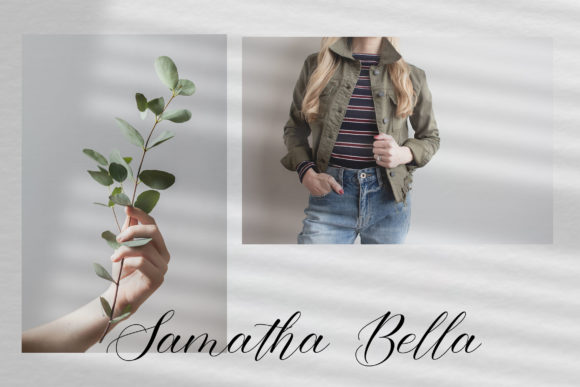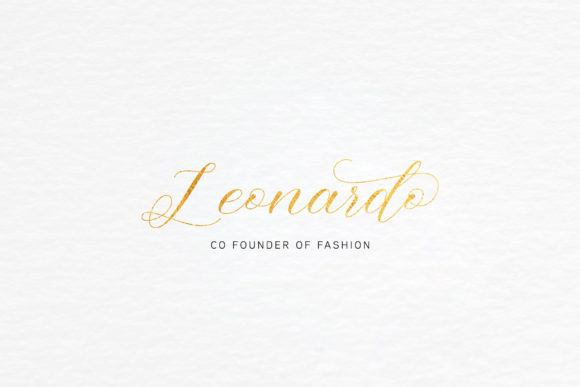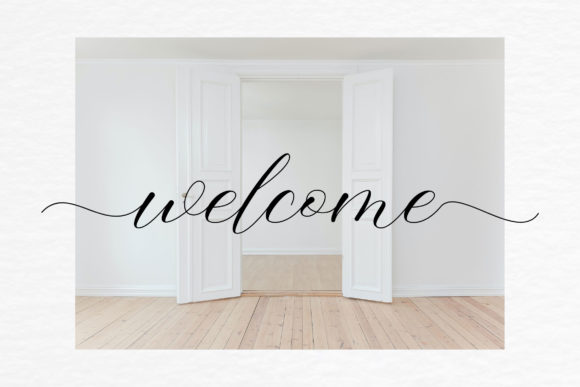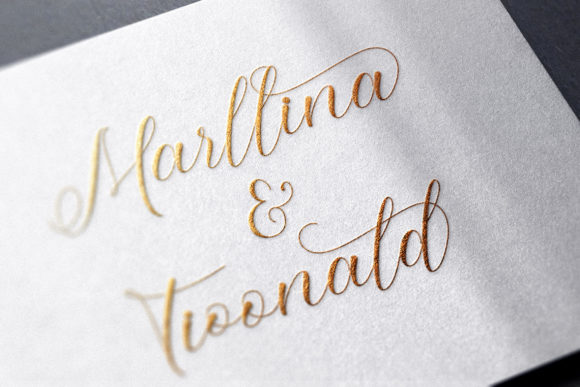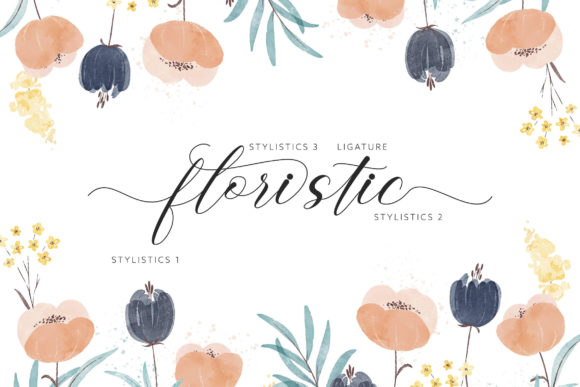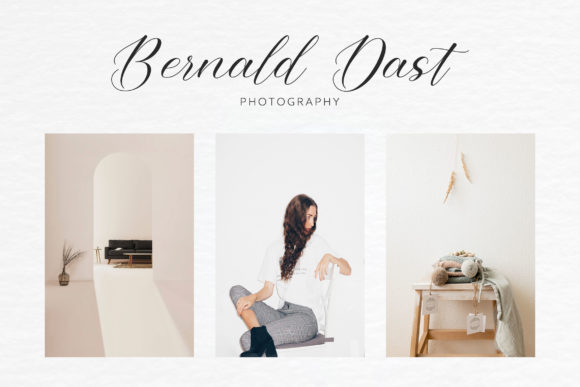
Introducing Amira Font: Elevate Your Designs with Elegance and Modernity
Are you a designer or crafter looking for a unique and stylish font to take your creative projects to the next level? Look no further than Amira Font, an elegant handwritten font that perfectly combines originality with a modern style. With its PUA encoding, Amira Font offers ease of access to a wide range of glyphs and swashes, making it the perfect addition to your font collection.
The Beauty of Amira Font
Amira Font is a stunning example of a handwritten font that exudes elegance and sophistication. Its modern style ensures that it will complement a wide range of designs, from wedding invitations and branding materials to digital products and craft projects. The font’s unique character set and swashes allow you to add a personal touch to your work, setting it apart from more generic fonts.
PUA (Private Use Area) encoding is a feature that allows font creators to include additional characters and glyphs that are not part of the standard Unicode character set. In the case of Amira Font, PUA encoding means that you can access a wide range of glyphs and swashes with ease, giving you more creative freedom and flexibility when working on your projects.
Benefits of Using Amira Font
- Elegant and Modern Style: Amira Font’s unique blend of elegance and modernity makes it perfect for a wide range of designs and projects.
- PUA Encoded: Easy access to a wide range of glyphs and swashes, giving you more creative freedom and flexibility.
- Handwritten Font: Adds a personal touch to your work, making it stand out from more generic fonts.
Design Ideas Using Amira Font
Amira Font is a versatile font that can be used in a wide range of design projects, including:
- Wedding Invitations: Add a touch of elegance and sophistication to your wedding invitations and stationery.
- Branding Materials: Use Amira Font to create a unique and memorable brand identity for your business.
- Digital Products: Add a personal touch to your digital products, such as ebooks and printables.
- Craft Projects: Use Amira Font to add a touch of elegance and sophistication to your craft projects, such as handmade cards and gift tags.
Amira Font is a stunning handwritten font that offers a unique blend of elegance and modernity. With its PUA encoding and wide range of glyphs and swashes, it’s the perfect addition to any designer’s or crafter’s font collection. Whether you’re working on a wedding invitation, branding materials, or a digital product, Amira Font is sure to elevate the look of your most creative designs.